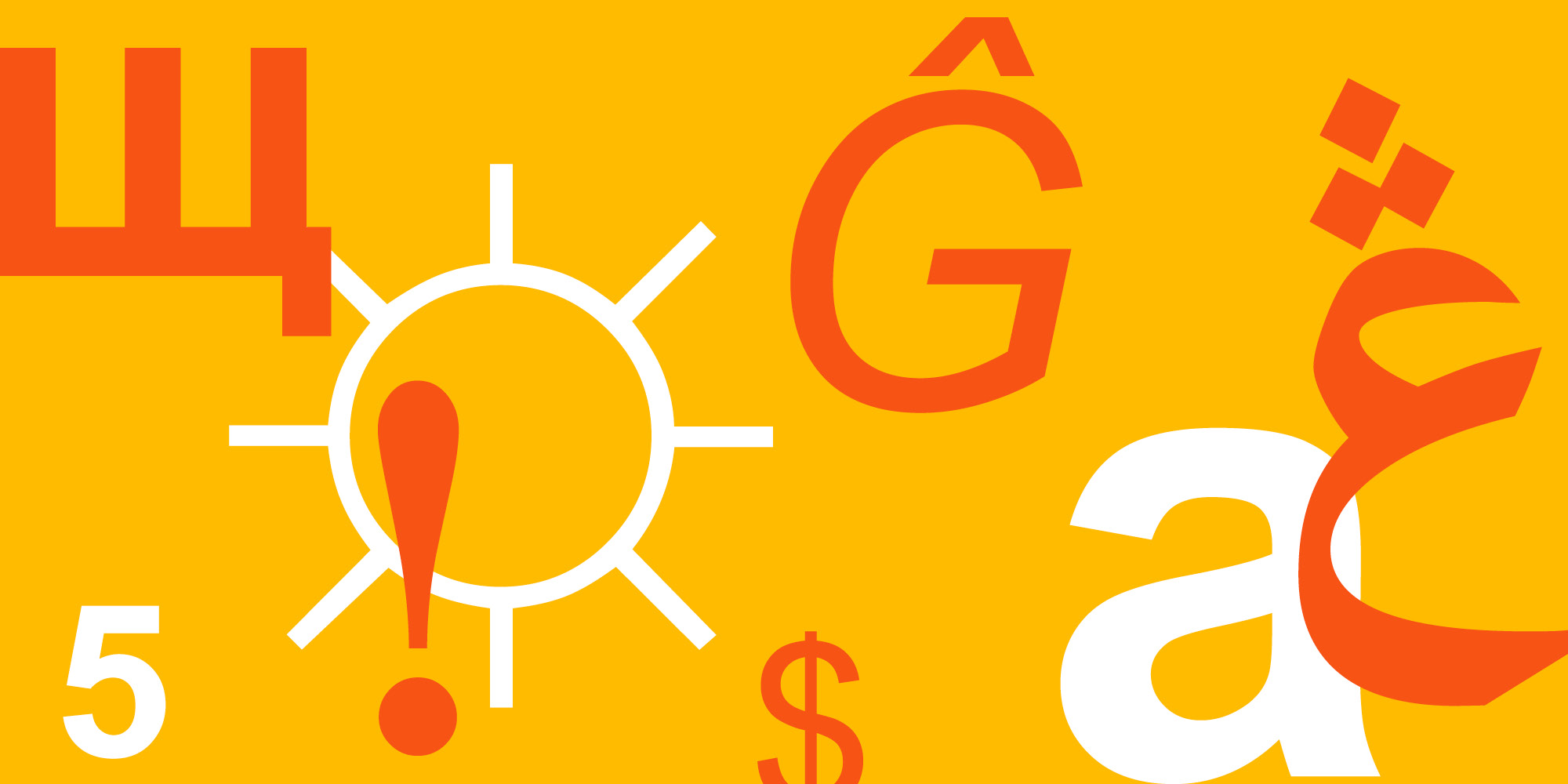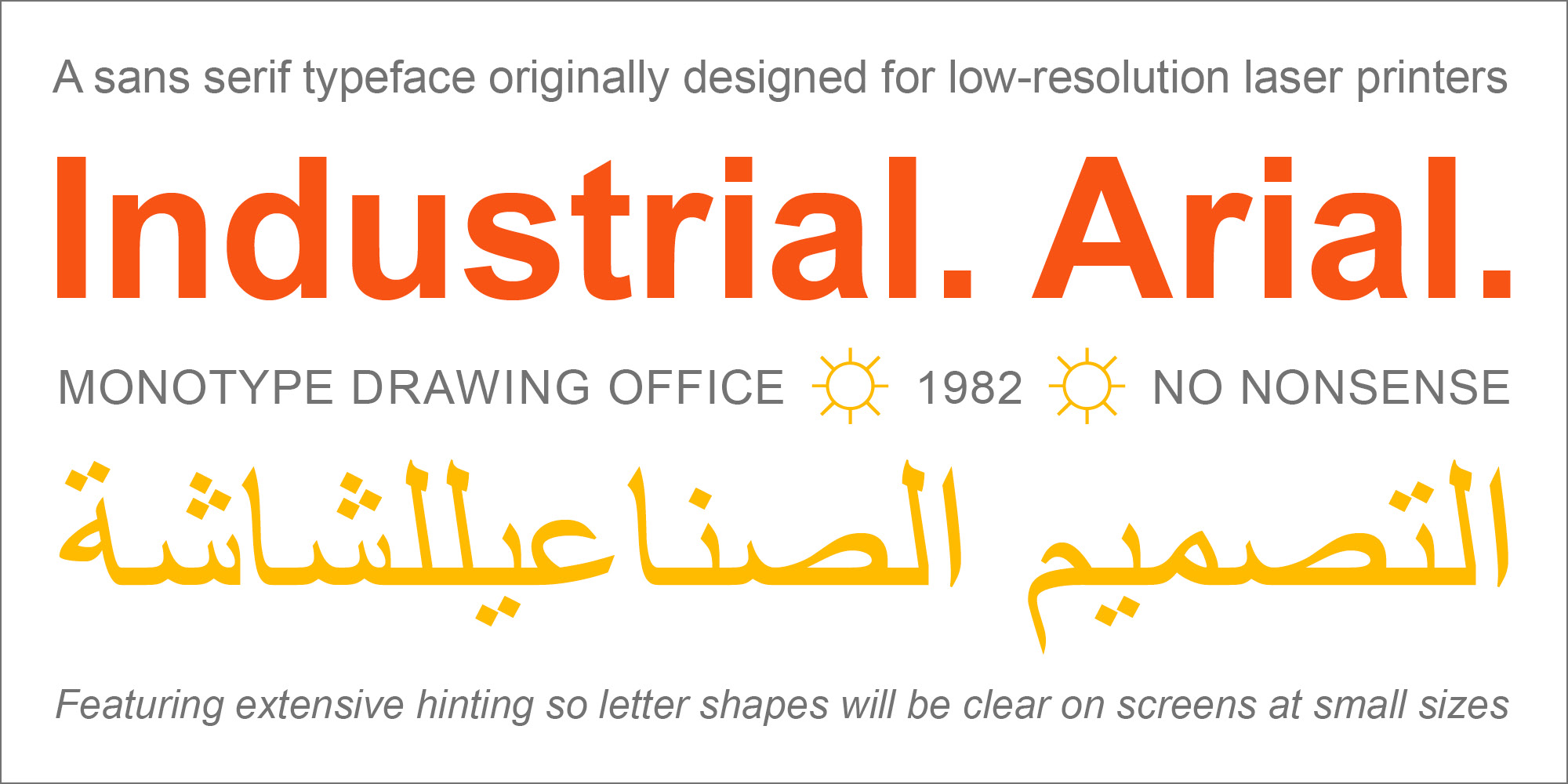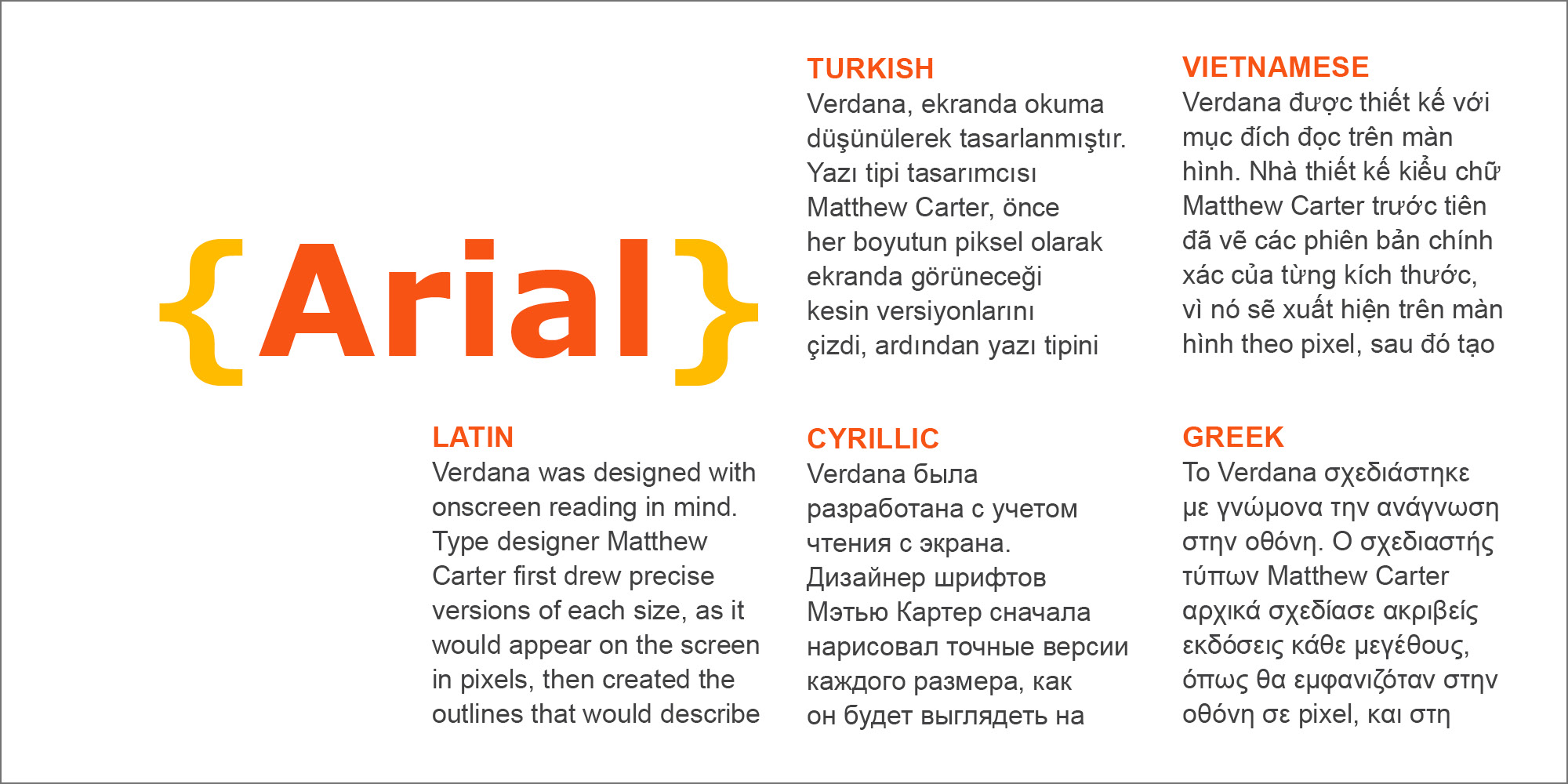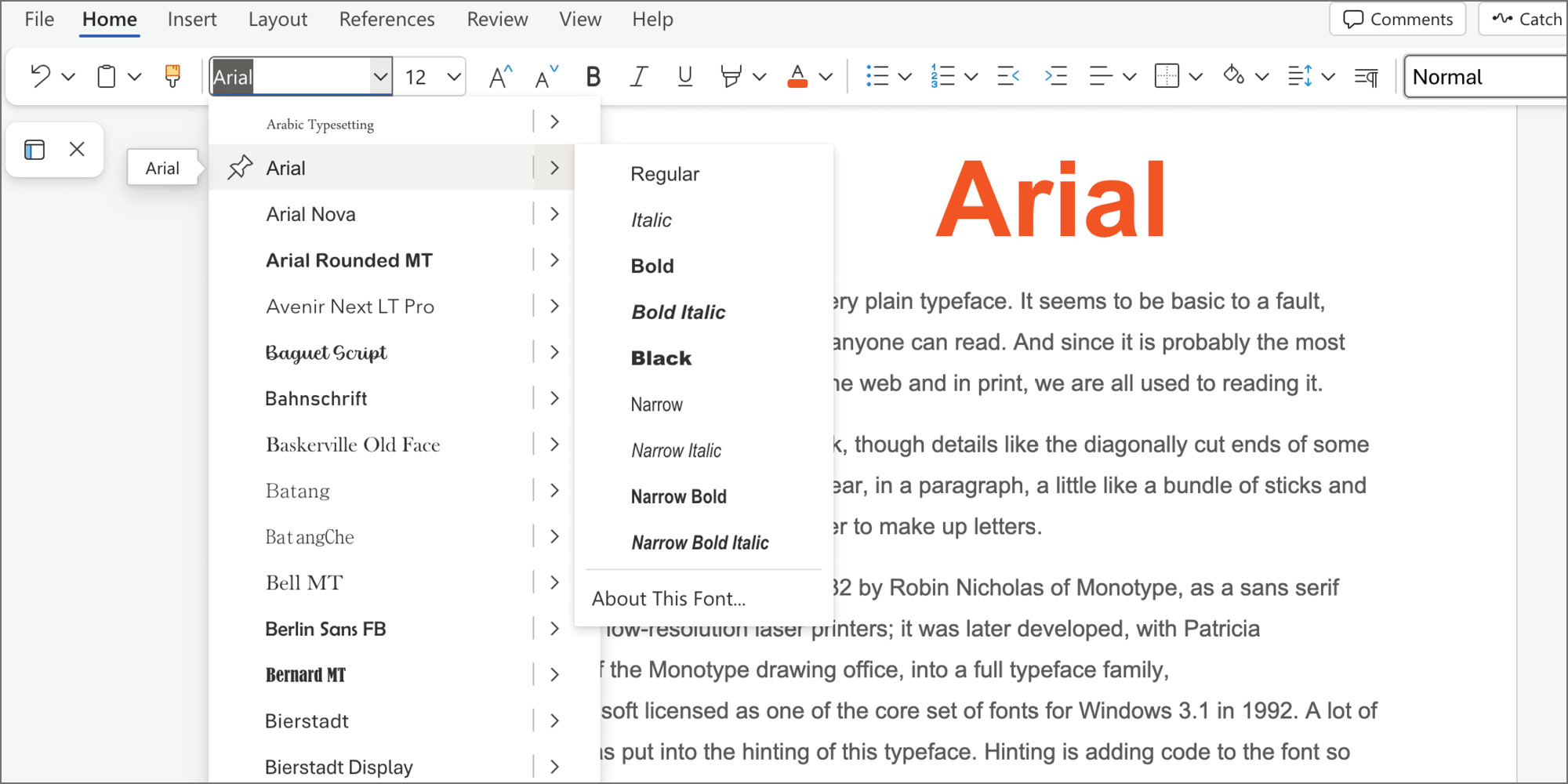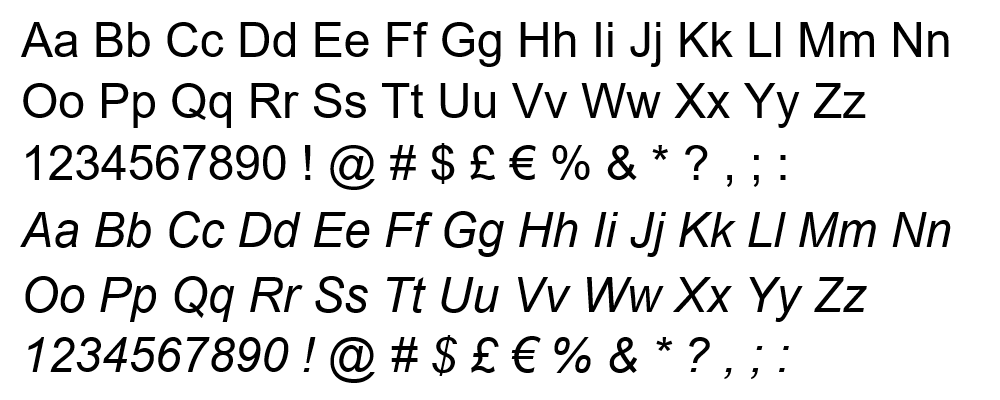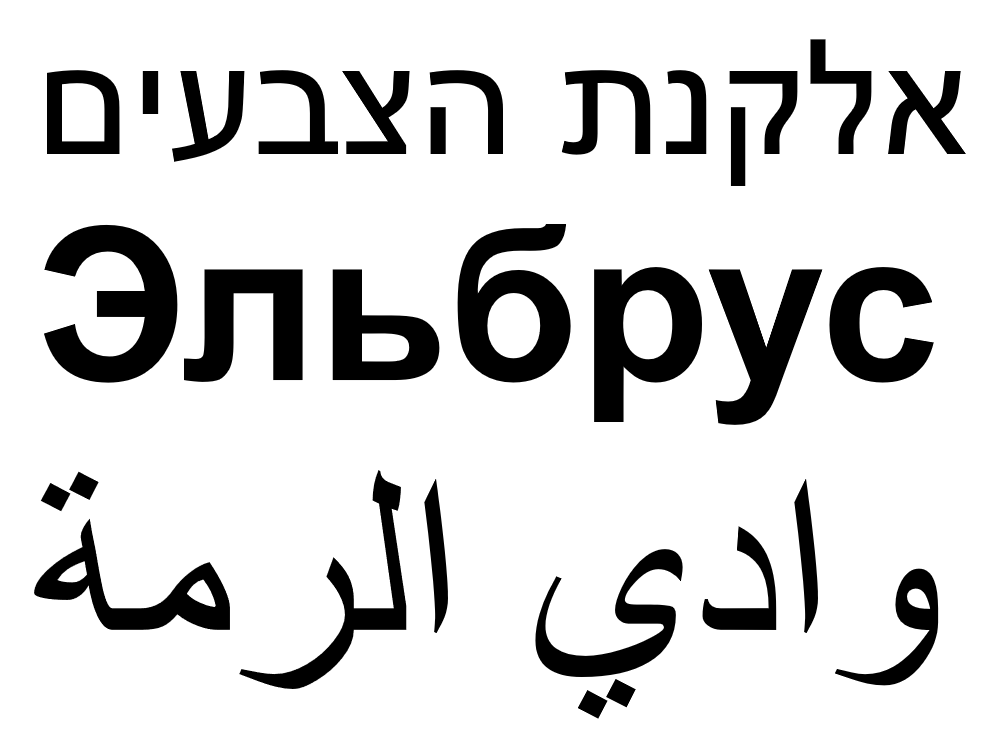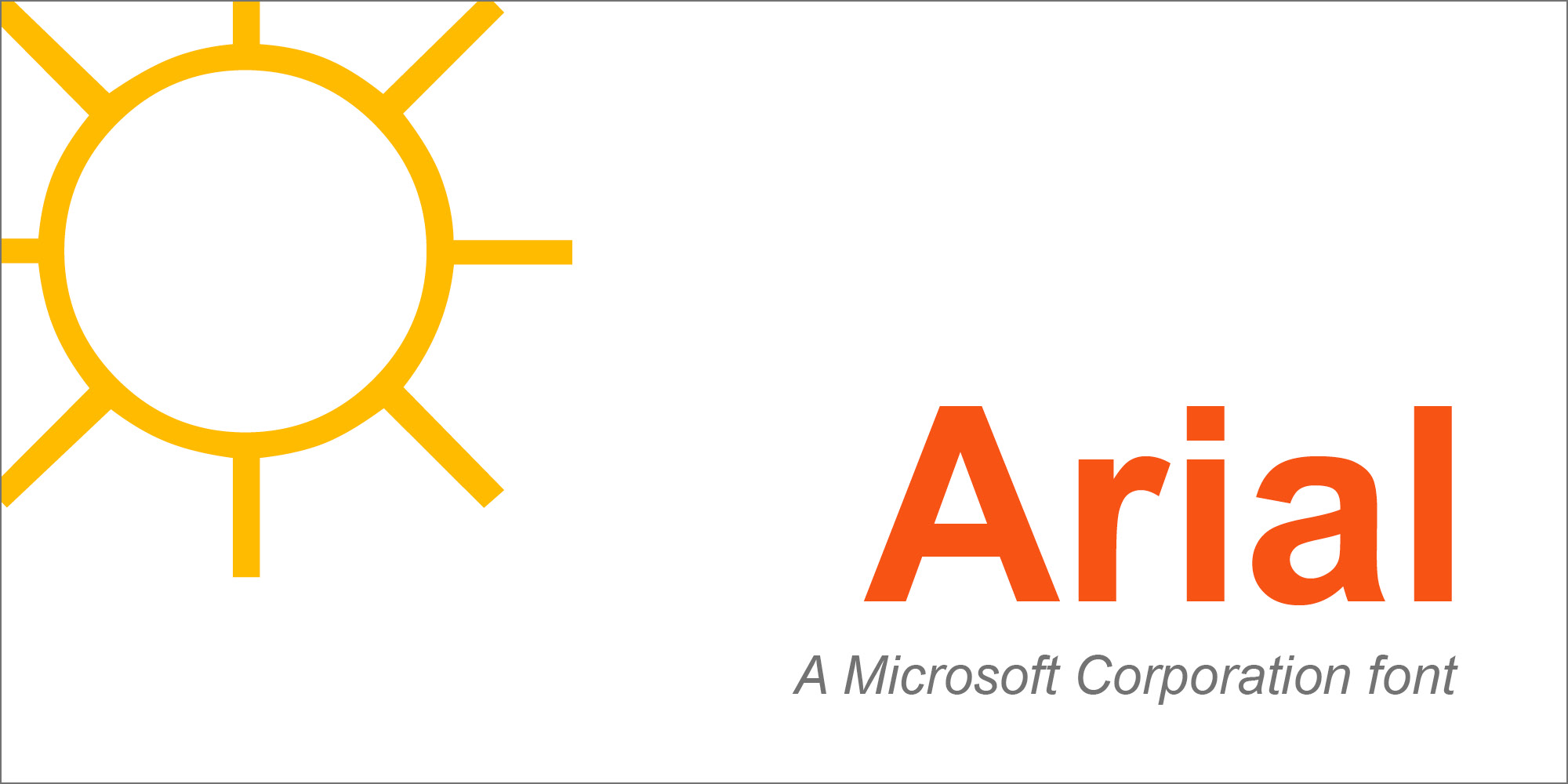
Overview
A contemporary sans serif design, Arial contains more humanist characteristics than many of its predecessors and as such is more in tune with the mood of the last decades of the twentieth century. The overall treatment of curves is softer and fuller than in most industrial style sans serif faces. Terminal strokes are cut on the diagonal which helps to give the face a less mechanical appearance. Arial is an extremely versatile family of typefaces which can be used with equal success for text setting in reports, presentations, magazines etc, and for display use in newspapers, advertising and promotions.
Styles & Weights | Arial Arial Bold Italic Arial Italic |
Designers | Monotype Type Drawing Office - Robin Nicholas, Patricia Saunders 1982 |
Font vendor | Agfa Monotype Corporation |